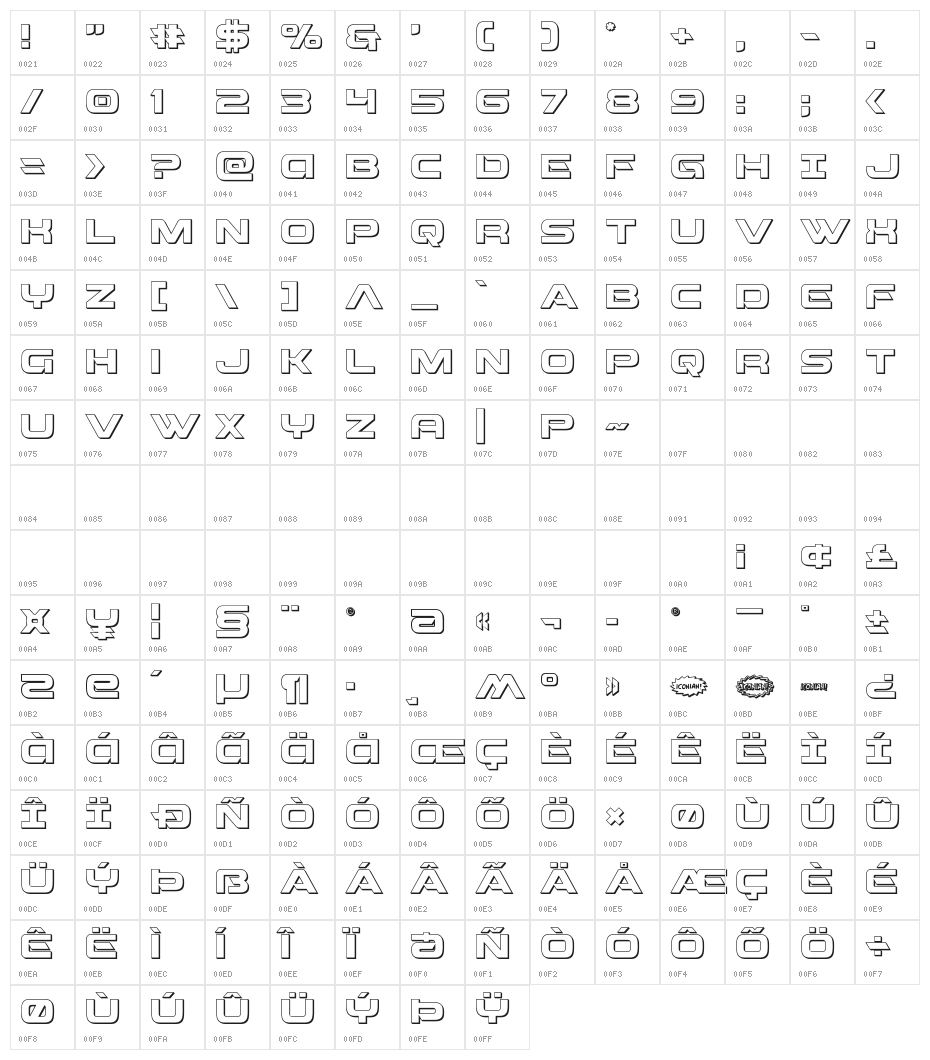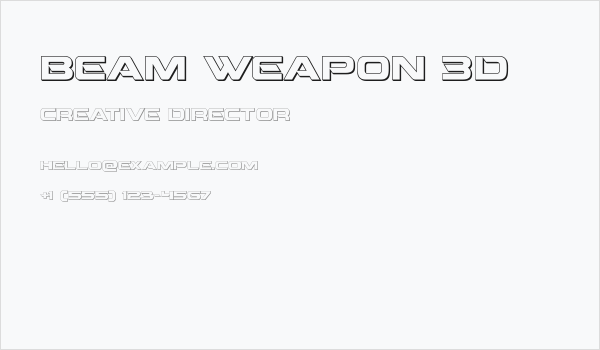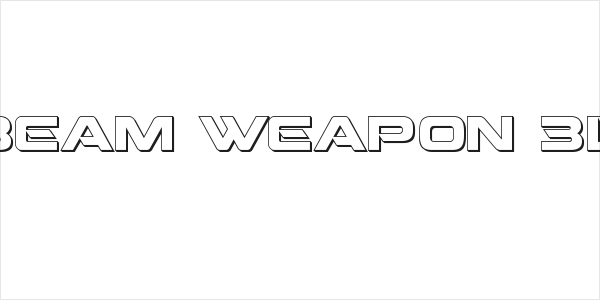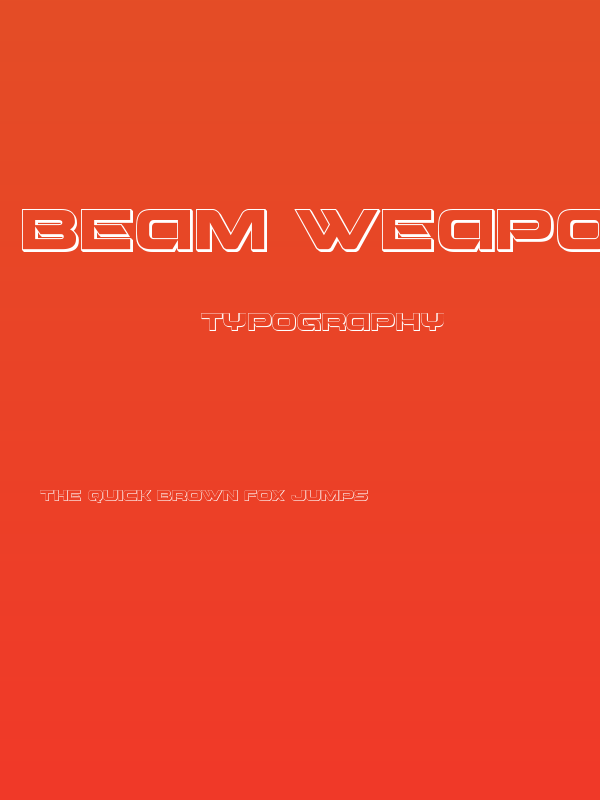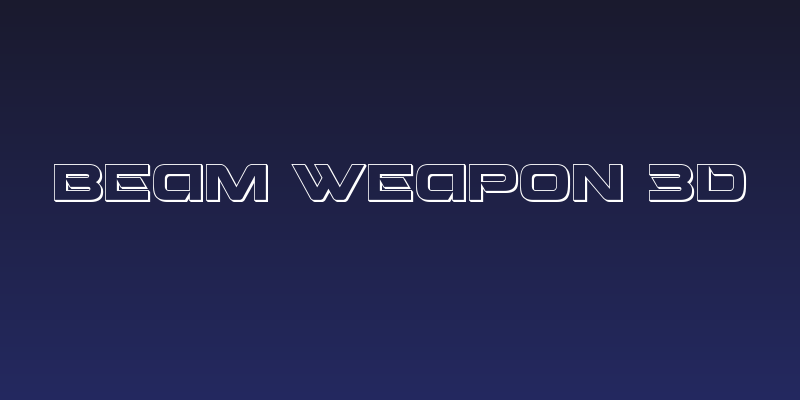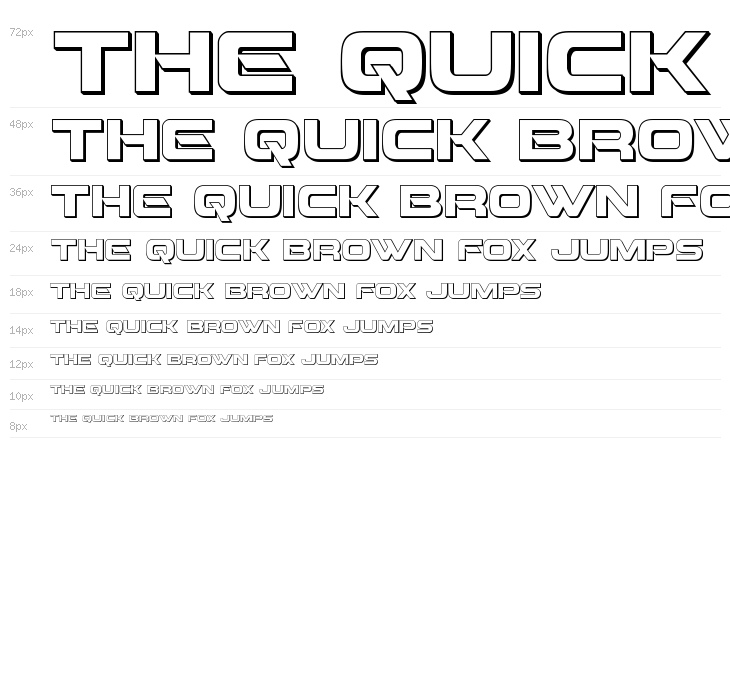
Beam Weapon 3D Font
Beam Weapon 3D Description
This font features a futuristic and bold design with a three-dimensional effect that gives each character a sense of depth and structure. The letters are outlined with a consistent stroke width, creating a hollow appearance that enhances the 3D illusion. The geometric shapes and sharp angles contribute to a modern and tech-inspired aesthetic, making it ideal for projects that require a cutting-edge look. The font maintains uniformity across uppercase, lowercase, numbers, and special characters, ensuring versatility in various design applications.
| Proposed Projects | Ideal for sci-fi themed designs, video game titles, technology branding, and futuristic posters. |